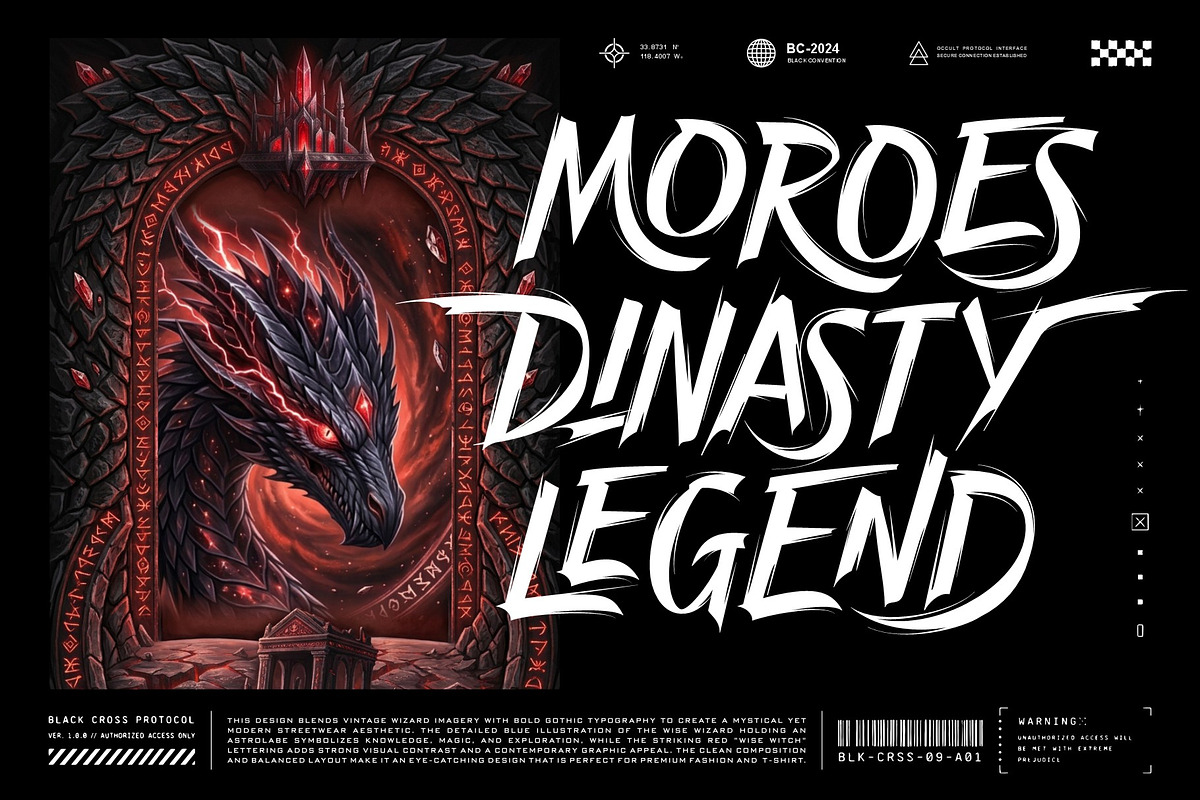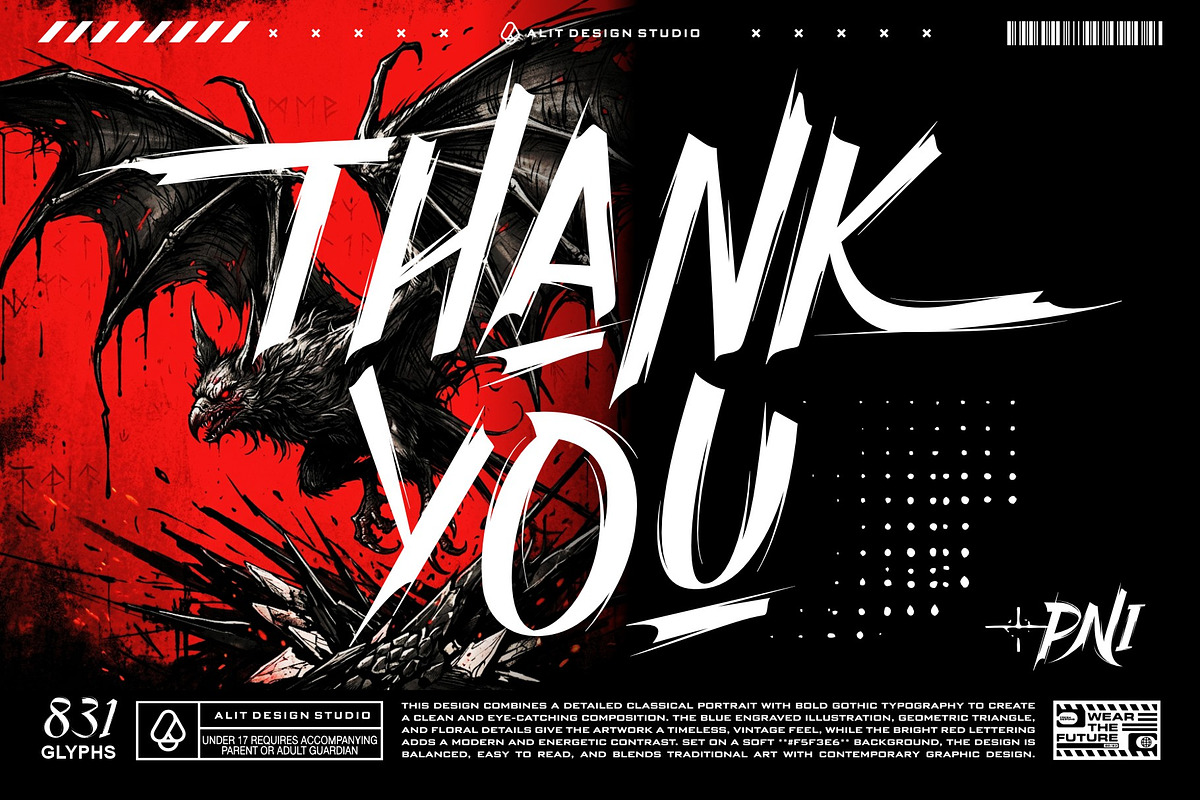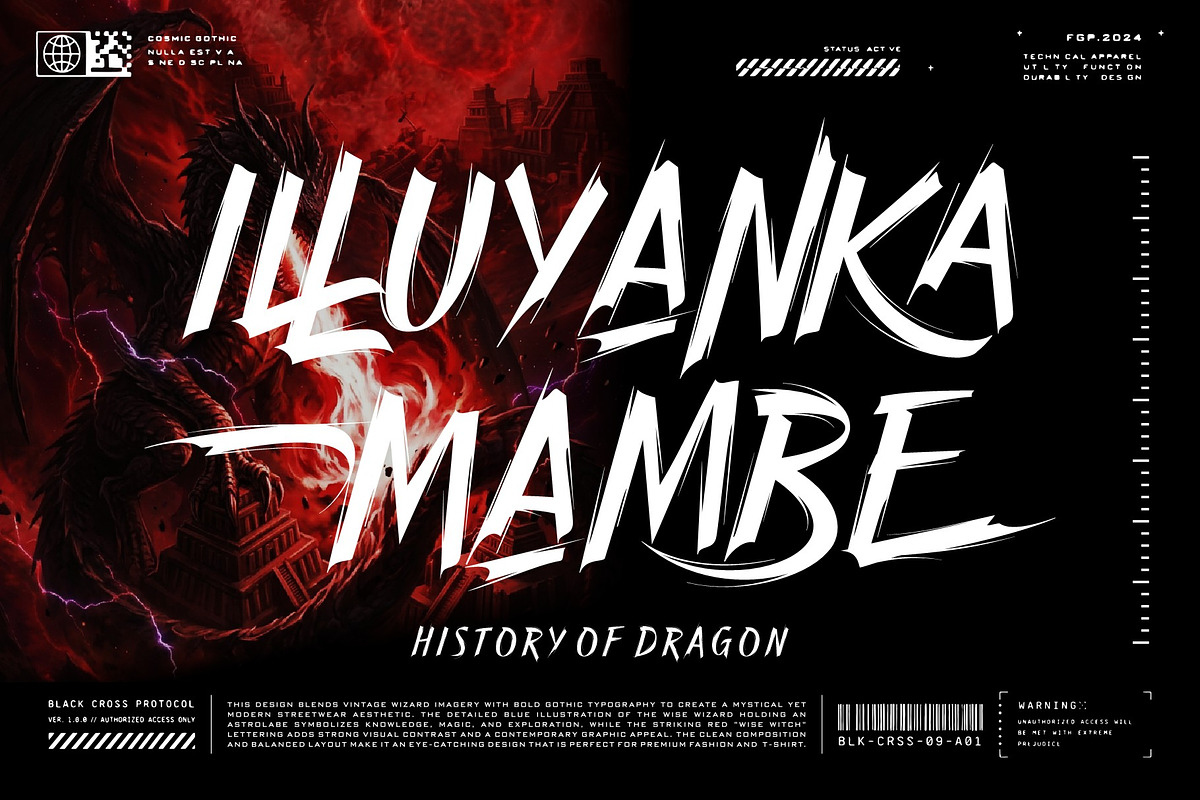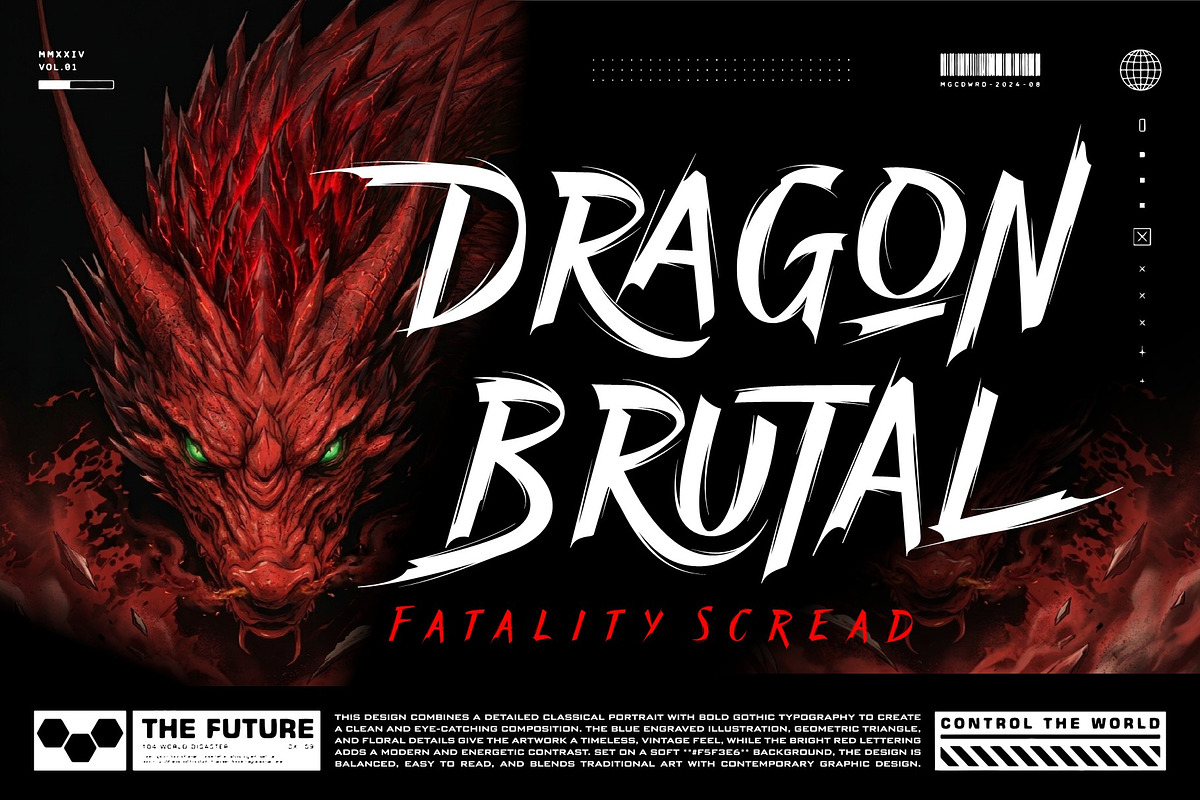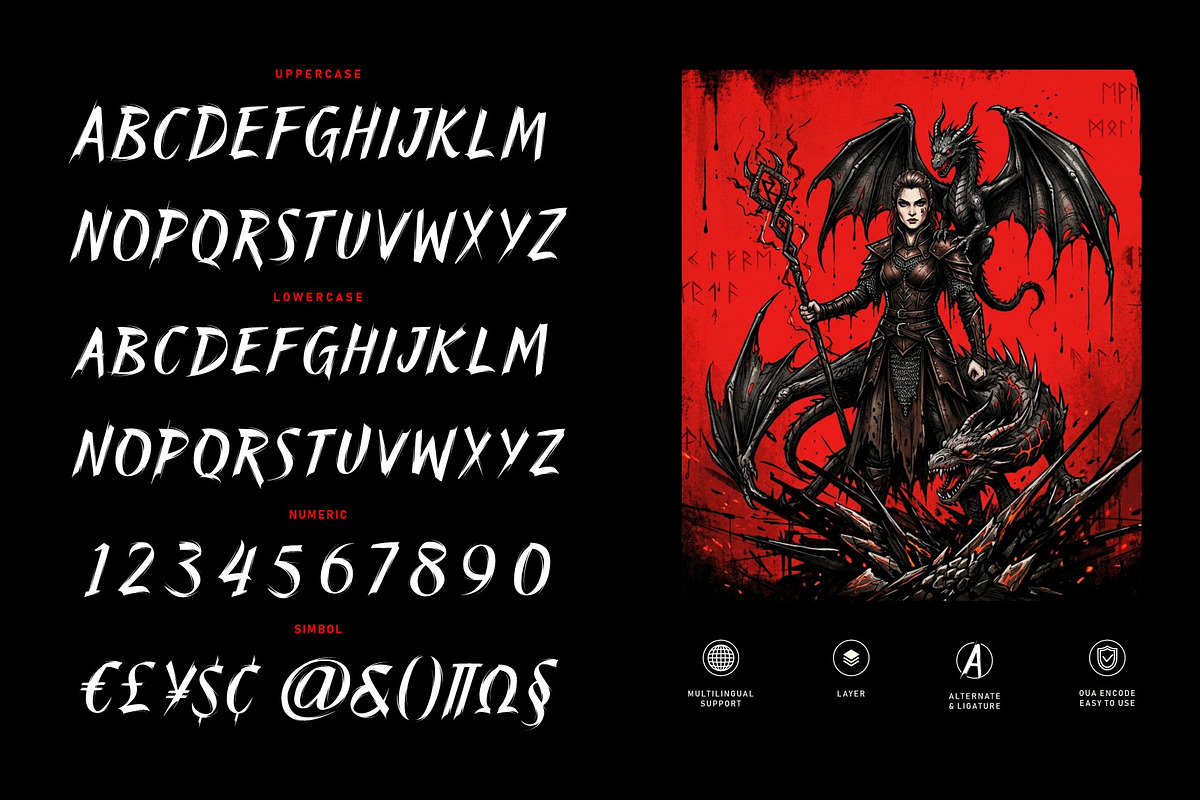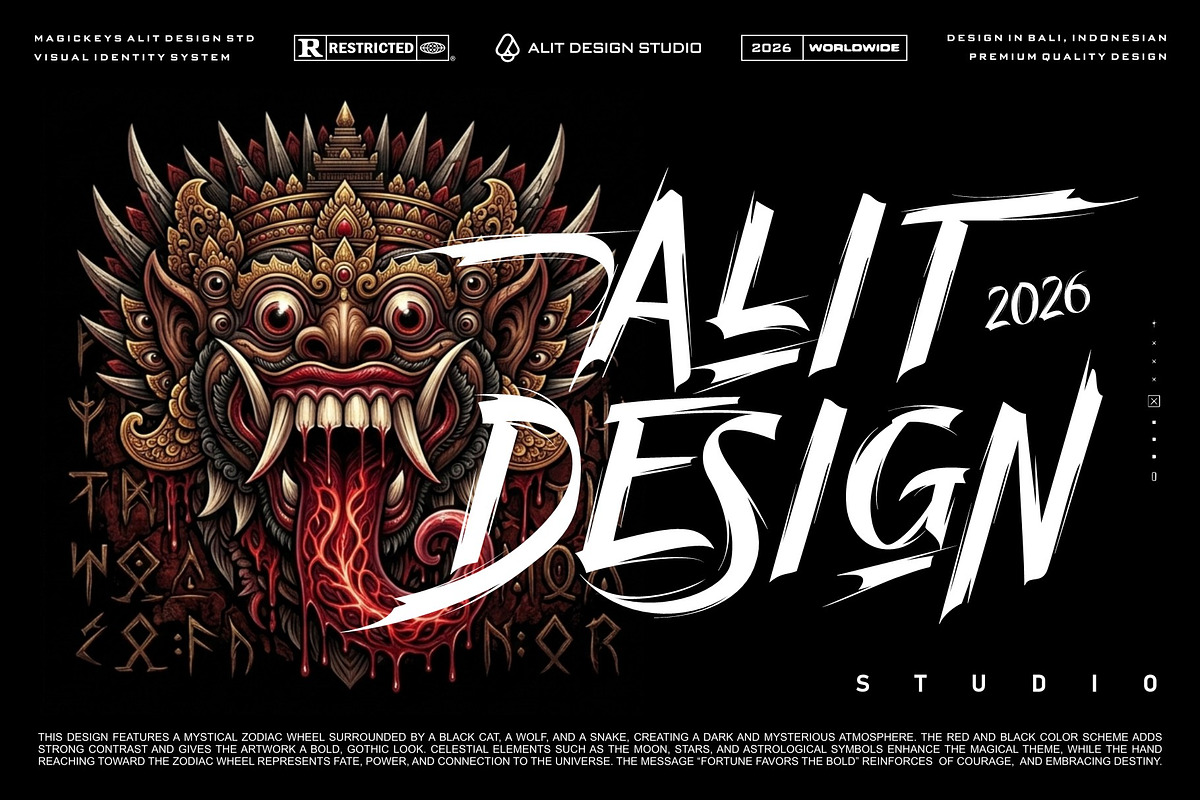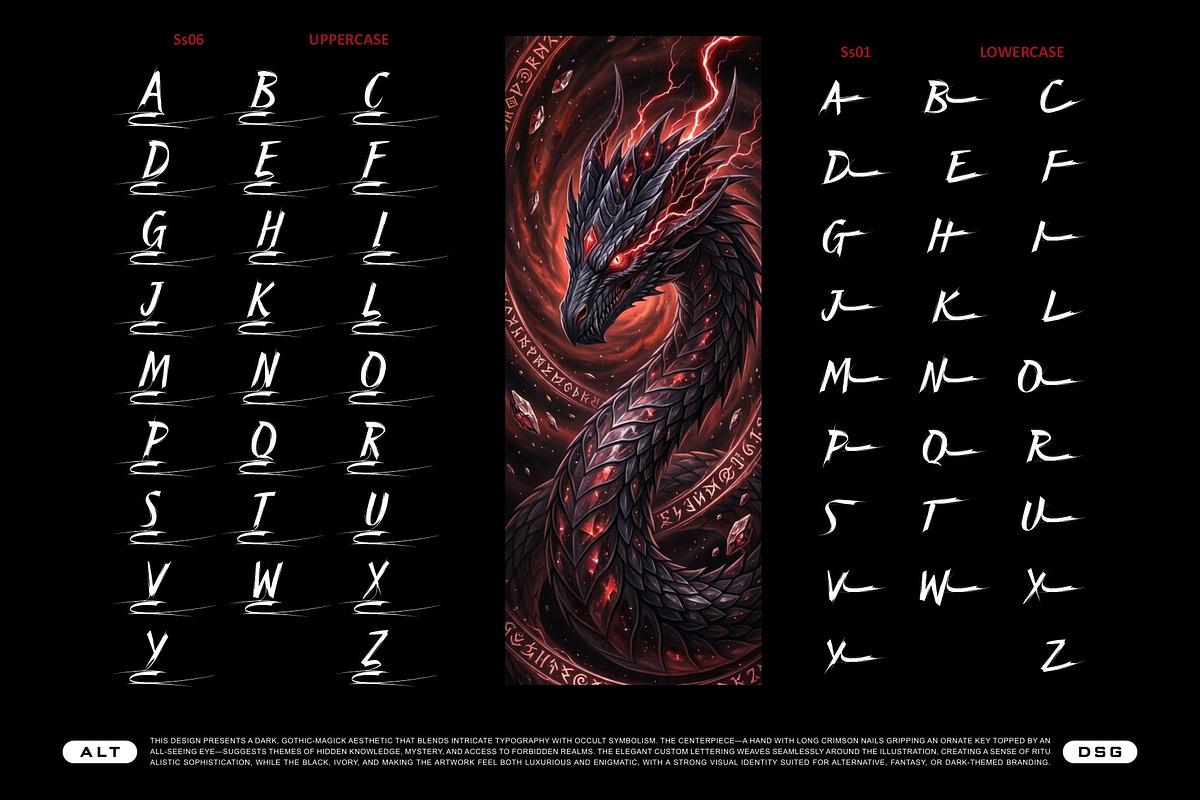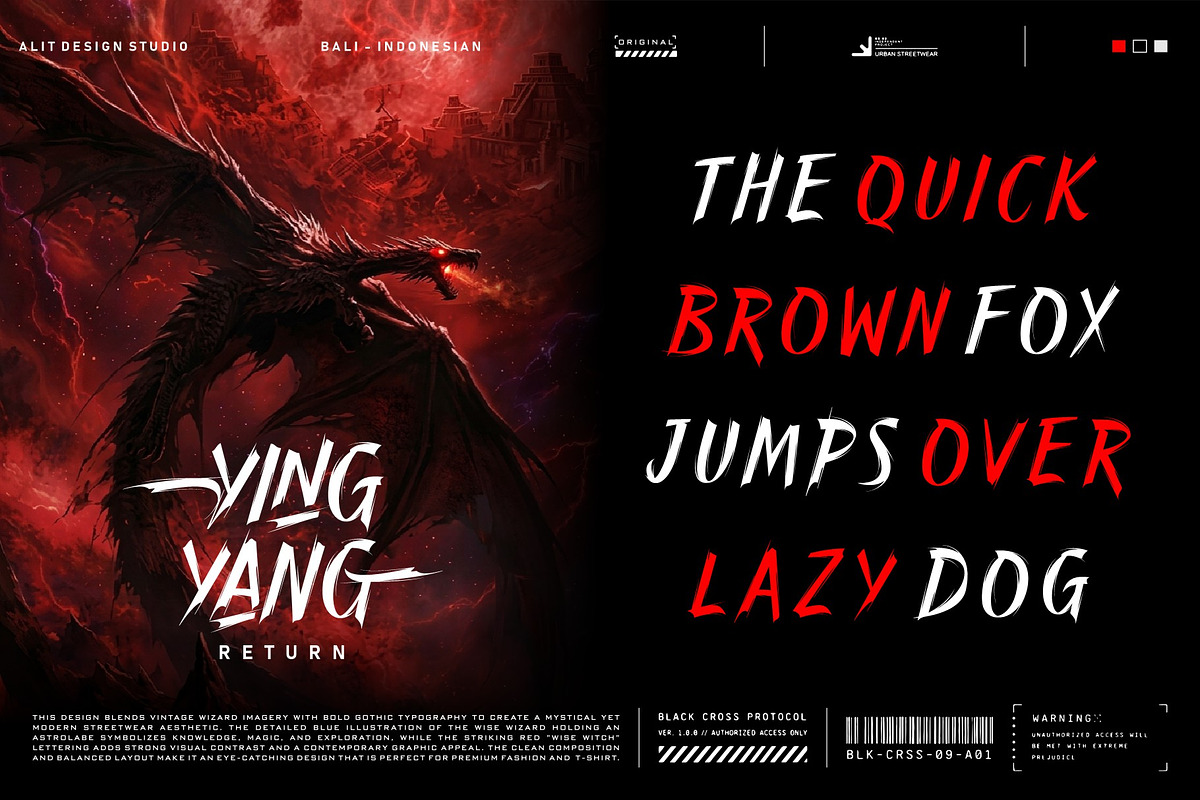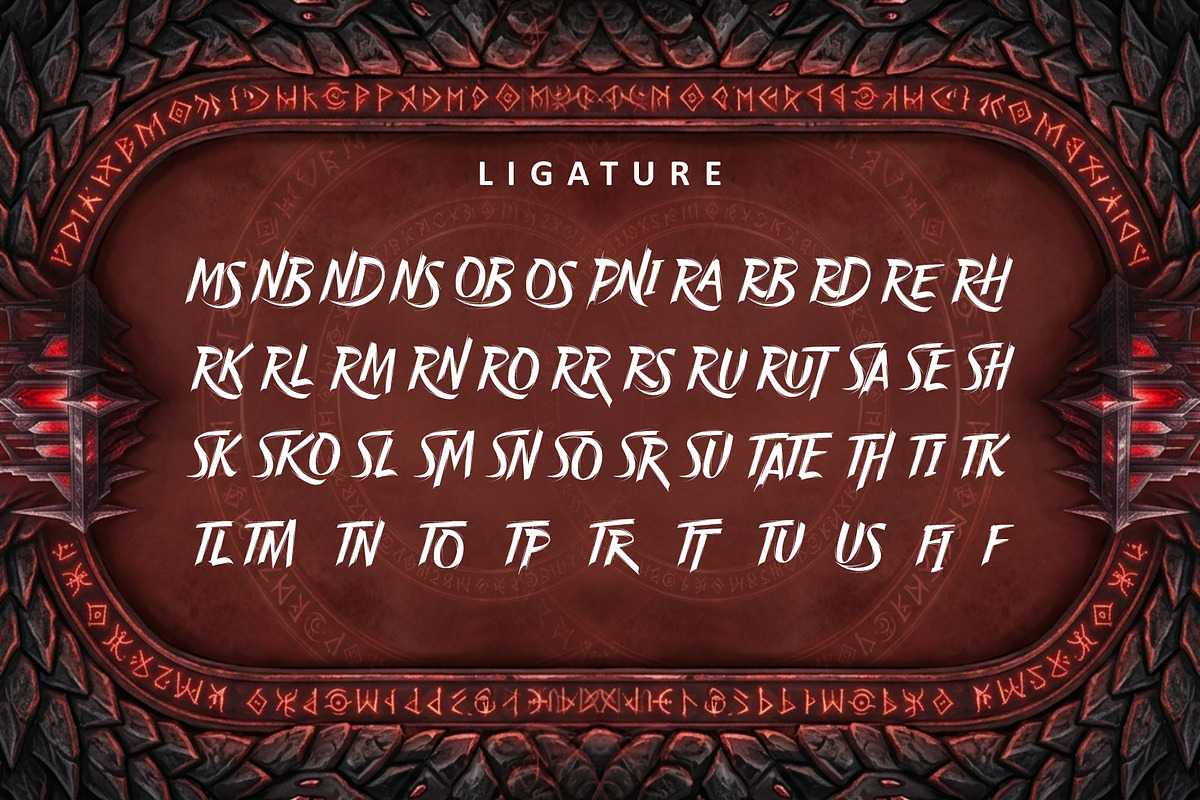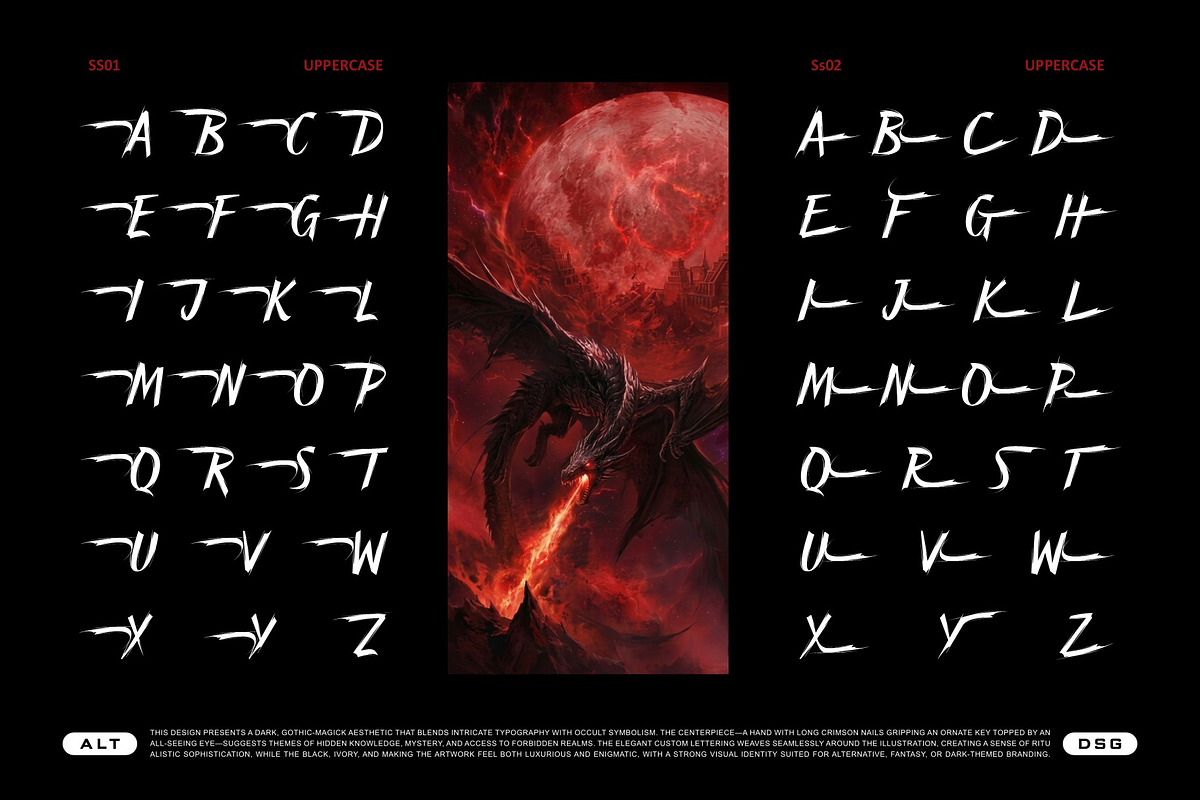
Brush Endless Typeface
Brush Endless Typeface: Raw Energy & Gothic Aesthetics
Unleash unapologetic raw power with the Brush Endless Typeface. Designed for creators who refuse to blend in, this aggressive, abstract brush font perfectly balances urban streetwear edge with dark, mystical gothic undertones. Whether you are designing brutalist apparel, heavy metal merchandise, fantasy gaming titles, or high-impact posters, Brush Endless delivers a striking, hand-painted aesthetic that commands attention.
Crafted with premium quality and meticulous attention to detail, this typeface goes far beyond standard alphabets. It is built to provide maximum versatility and a truly customized typographic rhythm for any high-end design project.
Key Features & Capabilities:
Extensive Character Set: A massive library of 831 glyphs.
Complete Basics: Includes standard Uppercase and Lowercase characters, alongside comprehensive Numbers and Symbols.
Global Reach: Full Multilingual Support to accommodate diverse design needs.
Limitless Customization: Features 7 distinct Stylistic Sets (SS01 through SS07) to dramatically alter the mood and flow of your text.
Seamless Flow: Packed with dozens of custom Ligatures (including AB, AD, AS, BS, and many more) to ensure letter transitions look naturally hand-drawn and aggressive.
Urban Streetwear & Technical Apparel Brands
Alternative, Grunge, and Heavy Metal Music Merch
Dark Fantasy, Occult, or RPG Gaming Titles
Brutalist Graphic Posters & Event Flyers
Edgy YouTube/Twitch Stream Graphics and Social Media Campaigns